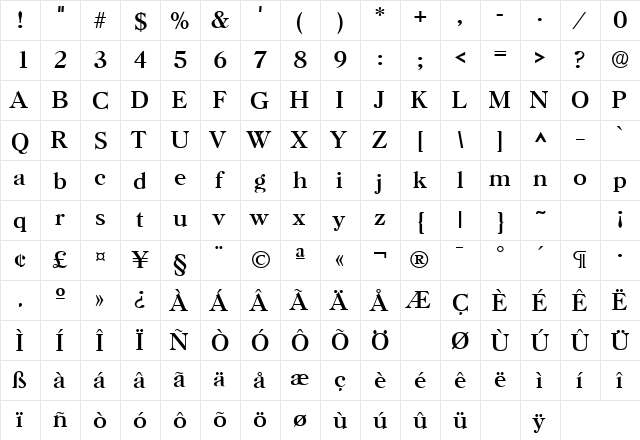
Horsham Regular Font Preview
Horsham Regular
Design Context for Horsham Typeface
Horsham takes a measured approach to typography — its balanced proportions and neutral character make it a reliable workhorse for both digital and print work.